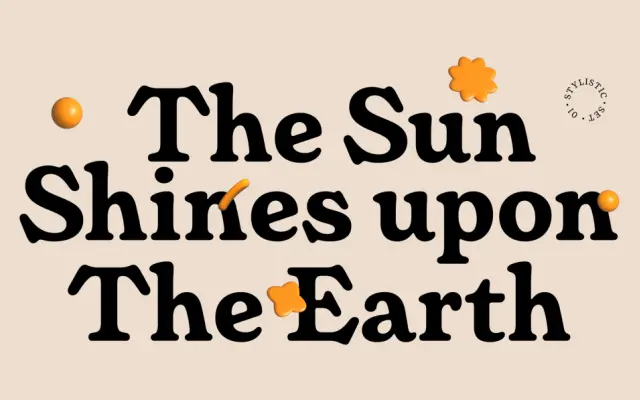
Plush
Fontfabric · Joaquín Contreras Soto, Viktoria Usmanova, Plamen Motev, Ivelina Martinova, Stefan Yatanski · 2023
A rounded display serif inspired by Windsor and Cooper, offered in seven weights with italics and variable font support across 102 languages.
Taking its cues from the soft, bracketed serifs of Windsor and Cooper, Plush pairs gentle curves with a structured, high-contrast construction suited to branding, editorial layouts and packaging. The family spans 14 static styles from ExtraLight to Black with matching italics, plus two variable fonts covering the full weight range in roman and italic. OpenType features include old-style figures, discretionary ligatures, contextual alternates and case-sensitive forms, with coverage extending to Latin and Cyrillic scripts.
Plush draws on rounded, bracketed serifs in the Windsor and Cooper tradition, giving it a soft, high-contrast display character rather than a conventional text serif. Its rounded details and gentle curves point firmly toward display and editorial use.